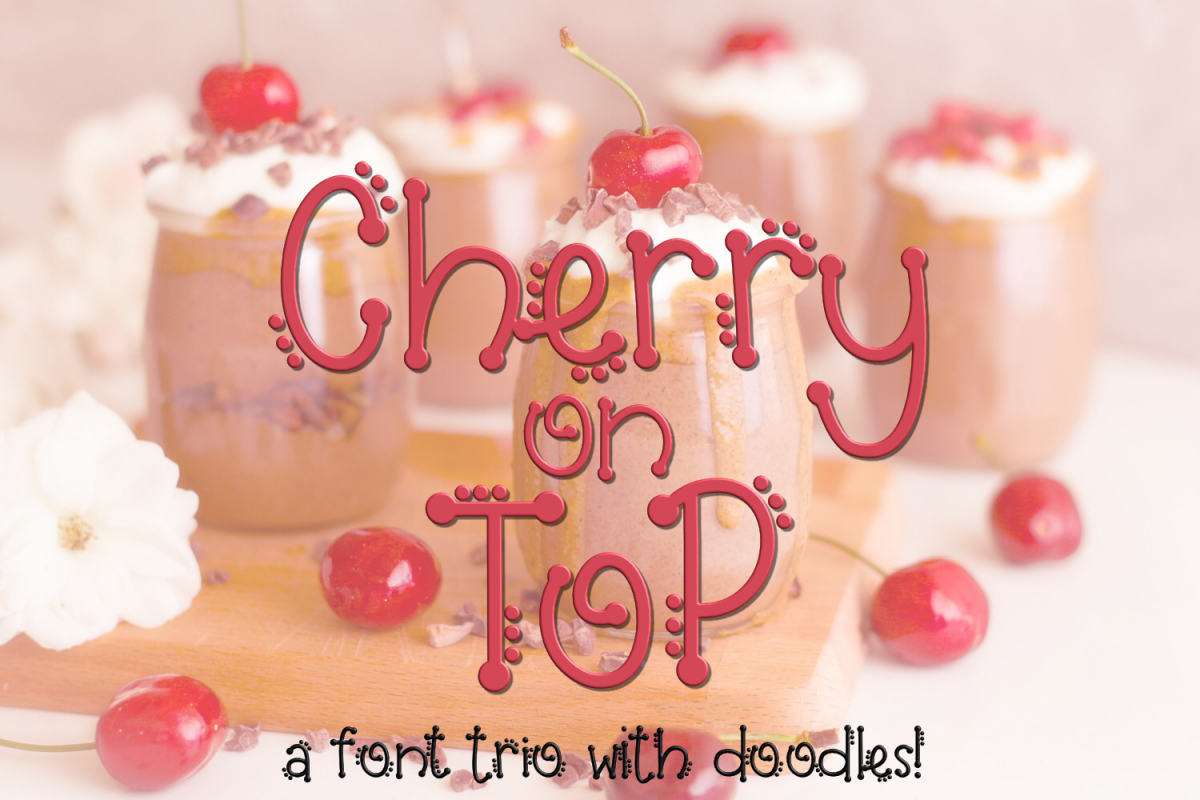
Cherry on Top - A Font Trio with Doodles
Introducing Cherry on Top
A delectable font trio!!!
Font 1 has circles at the ends of each letter!
Font 2 has circles at the ends of each letter and smaller circles as well!
Font 3 is a doodle font from A-Z!